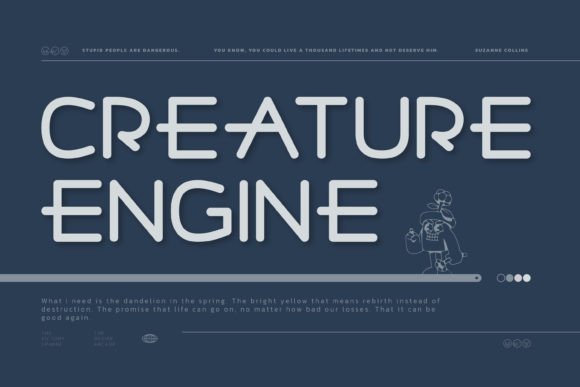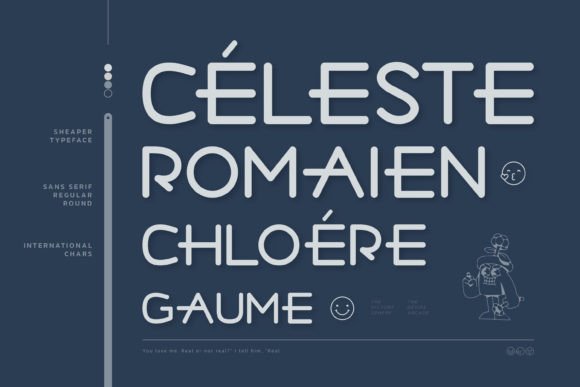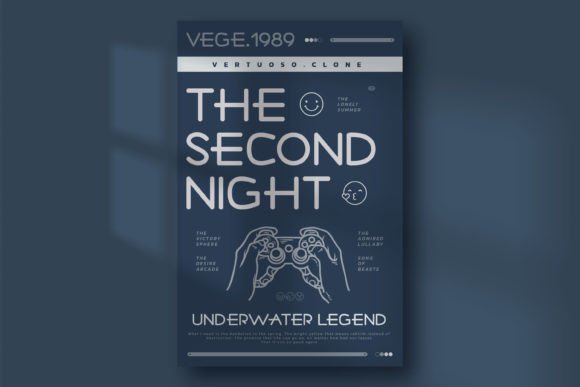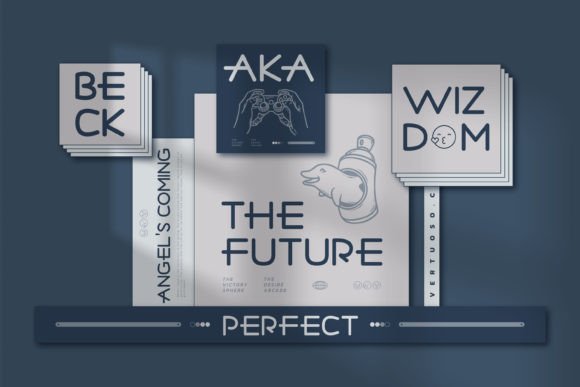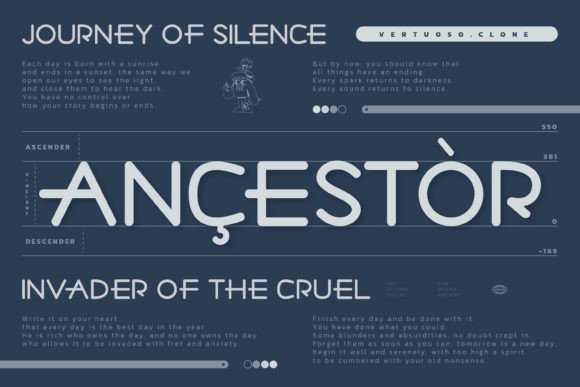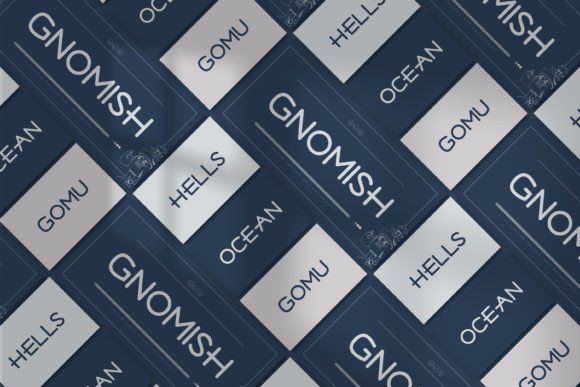
Introduction to Sheaper Font
You know that moment when you’re working on a creative project and you’re stuck on finding the perfect font? The one that will elevate your design from good to amazing? That’s exactly what happened to me when I stumbled upon the Sheaper Font.
As a designer, I’ve always been on the lookout for unique and stylish fonts that can add a touch of personality to my work. And let me tell you, the Sheaper Font is a game-changer. With its natural and smooth sans serif style, it’s the perfect addition to any design project. Whether you’re working on a logo, a brochure, or a website, the Sheaper Font is sure to impress.
Key Features of Sheaper Font
- High-quality, professional design ideal for creative projects and presentations.
- Designed with precision and attention to detail, ensuring a crisp and clear display at high resolutions (up to 300 DPI).
- Includes a range of glyphs and characters, making it suitable for various design projects, from logos to typography-based art.
Honest Review: Sheaper Font
As a designer, I’m always on the lookout for high-quality design resources that can elevate my creative projects. Recently, I stumbled upon the Sheaper Font, and I have to say, it’s been a game-changer for me.
However, there are a few limitations to consider: ⚠️ The font is limited in its customizability, and some users may find it difficult to adjust the font to their liking. Additionally, the font may not be suitable for designs that require a lot of bold or italic text.
Sheaper Font
Tips for Getting the Most Out of Sheaper Font
To get the most out of Sheaper Font, experiment with different font sizes, colors, and styles to create a unique and eye-catching design. You can also use Sheaper Font in conjunction with other design elements to create a cohesive and professional-looking design.
Sheaper Font is ideal for use in digital design projects, including presentations, documents, and social media graphics. It is also a great choice for use in print design projects, such as brochures and business cards. With its transparent background and high-quality design, Sheaper Font is a versatile font that can be used in a variety of creative projects.